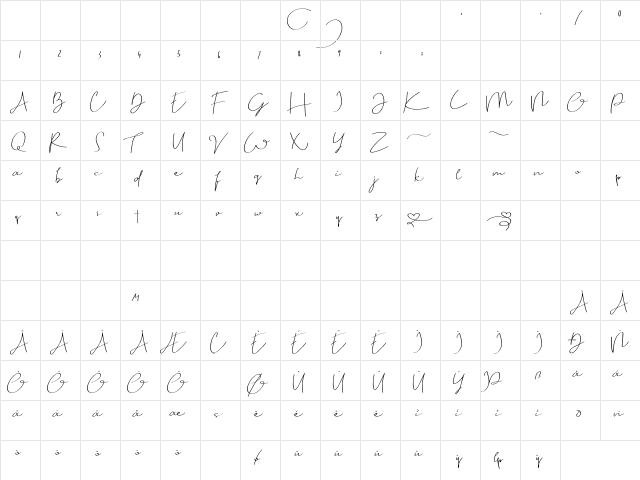
Pharmacist Glinda Regular Font Preview
Pharmacist Glinda Regular
Pharmacist Glinda Regular Font Details
Design Context for Pharmacist Glinda Typeface
Pharmacist Glinda is a composed and adaptable typeface that performs quietly and consistently across a wide range of design contexts.